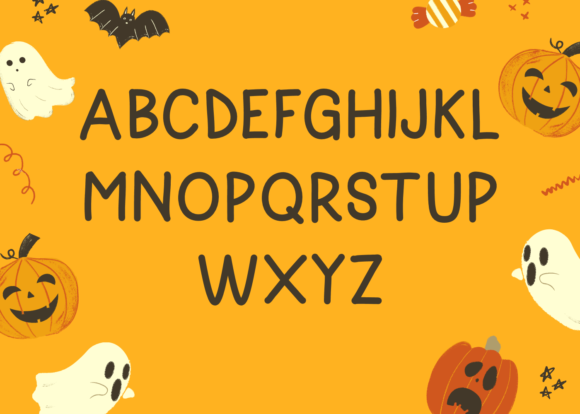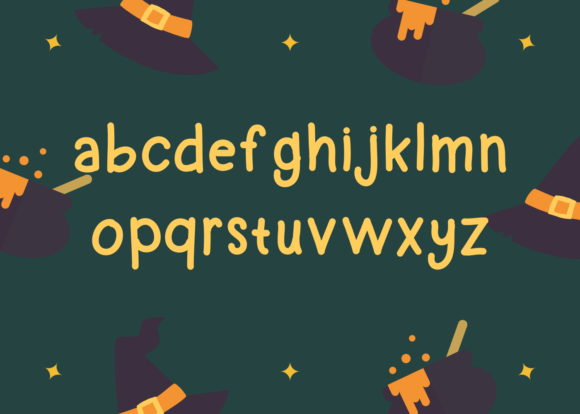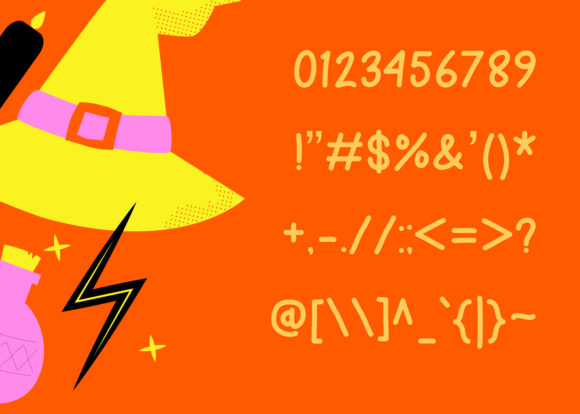
Witcher Handwriting Font
About Witcher Handwriting Font
Witcher Handwriting is an exquisite script font, masterfully designed to become a true favorite. It maintains its classy calligraphic influences while feeling contemporary and fresh. Fall in love with it and bring your projects to the highest levels!